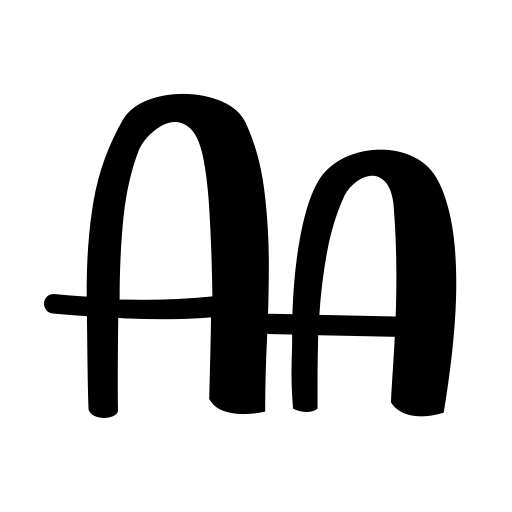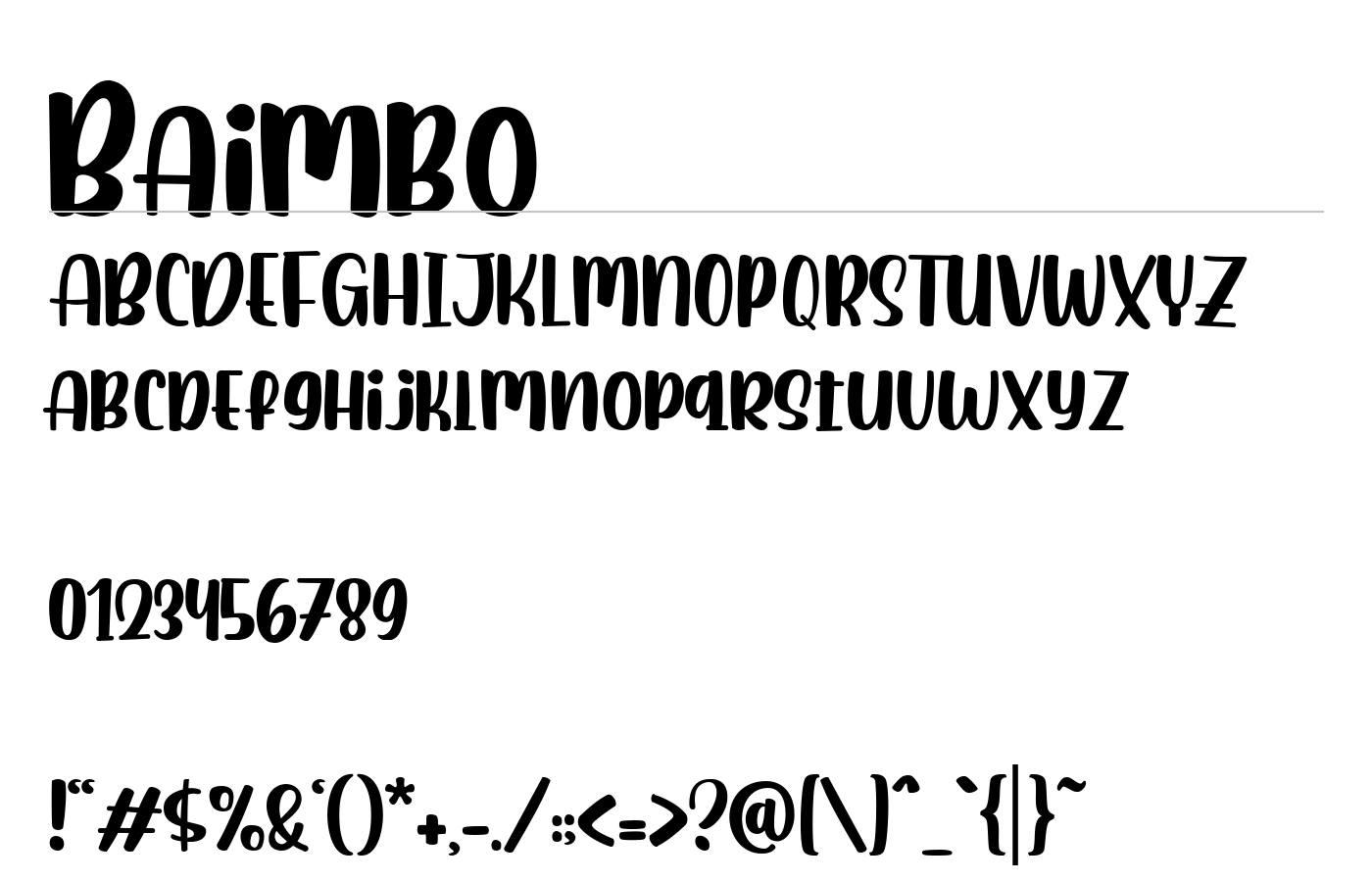
Baimbo is a playful and lively sans serif font featuring rounded, brush-like strokes with medium weight and a slightly condensed width. Its tall x-height and quirky letterforms create a casual, handwritten feel that works well for creative projects, children's books, or brands seeking a friendly and approachable vibe. This font shines in headlines, logos, and packaging where personality and charm are key.
Baimbo Font